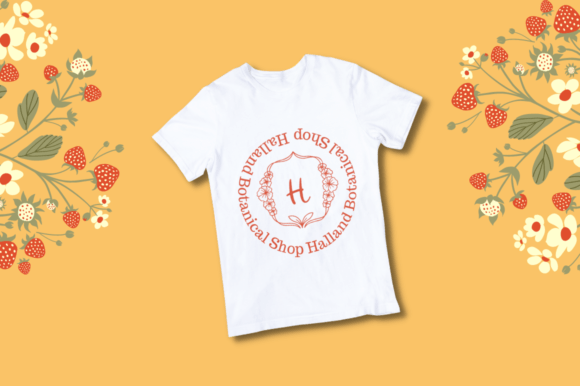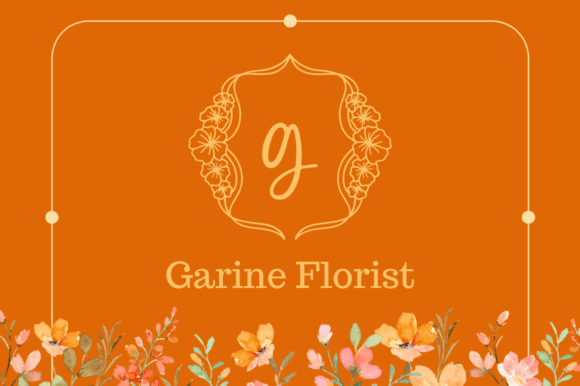
Introduction to Rafi Flower Monogram Font
Rafi Flower Monogram is a sweet and adorable decorative font.
It looks stunning on wedding invitations, greeting cards, monogrammed mugs, or anything that needs a lovely, romantic touch .